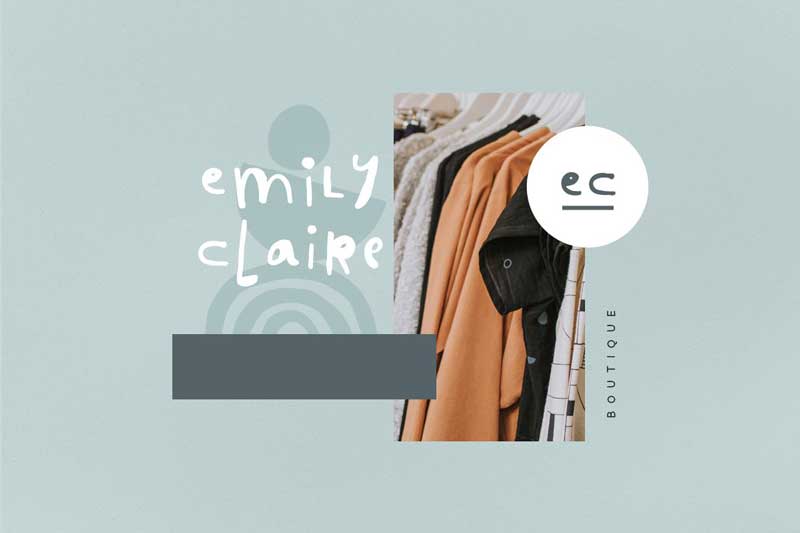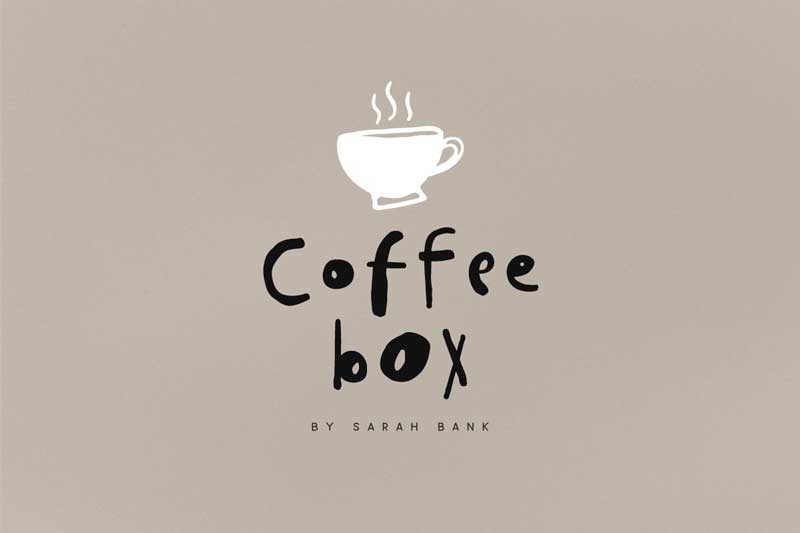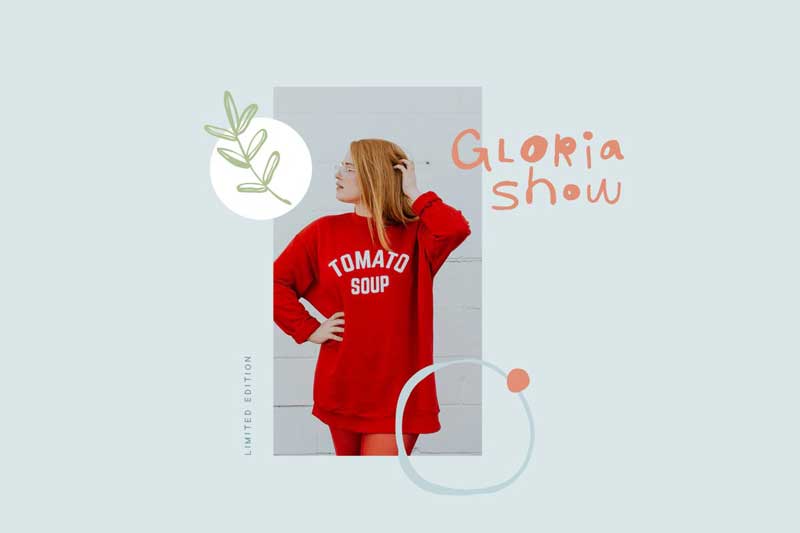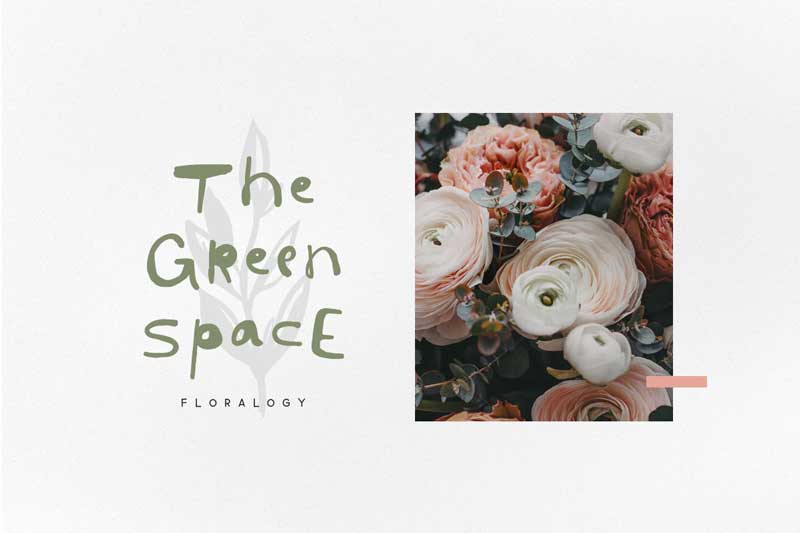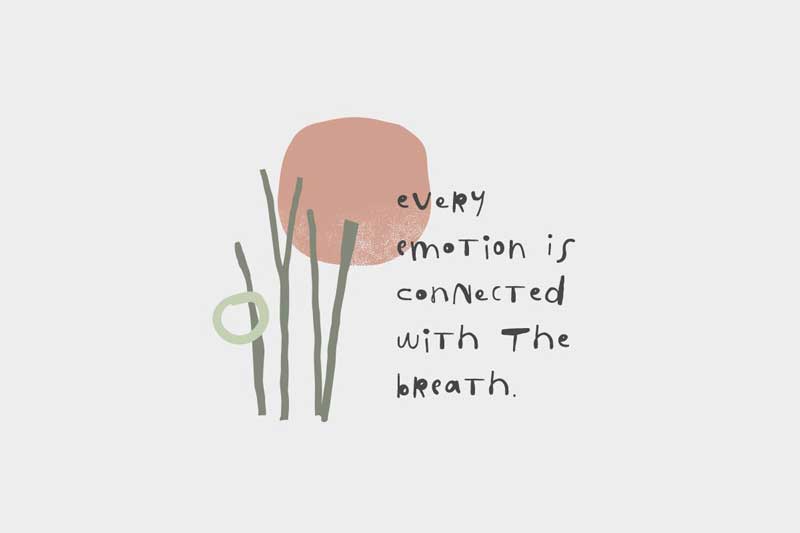
Tango is a modern fun font, every single letter has been carefully crafted to make your text looks beautiful. With modern fun style, this font will perfect for many different projects ex: quotes, blog header, poster, wedding, branding, logo, fashion, apparel, letter, invitation, stationery, etc.